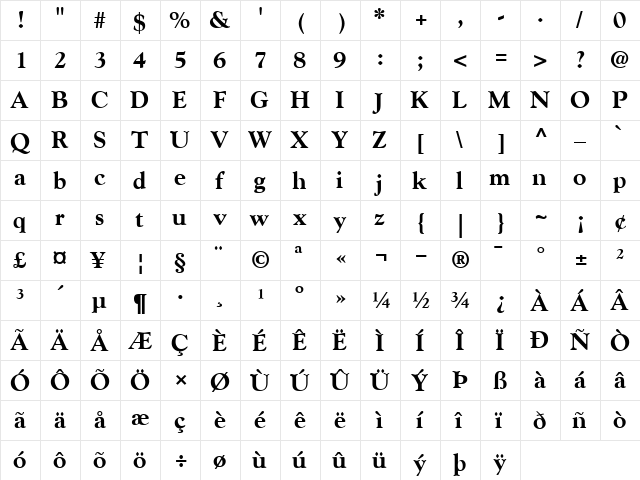
Goudy ExtraBold
Design Context for Goudy Typeface
Goudy is a composed and adaptable typeface that performs quietly and consistently across a wide range of design contexts. Its bold stroke weight gives it real presence on the page.
Pro Tip: Pair Goudy with a font of contrasting weight or personality to build a more expressive typographic hierarchy.